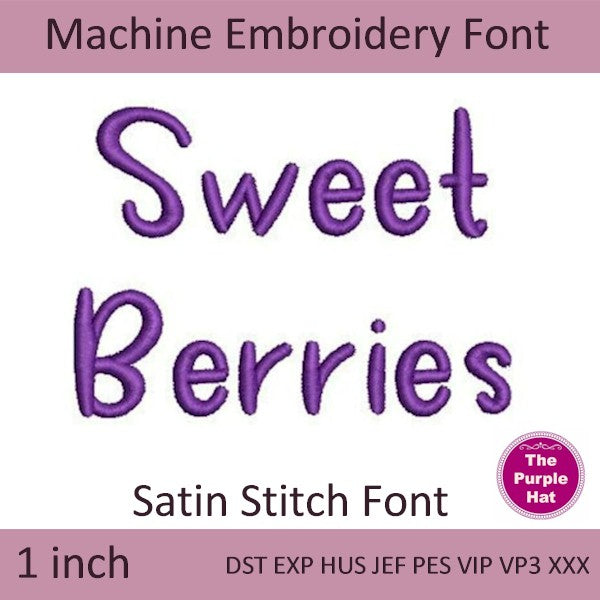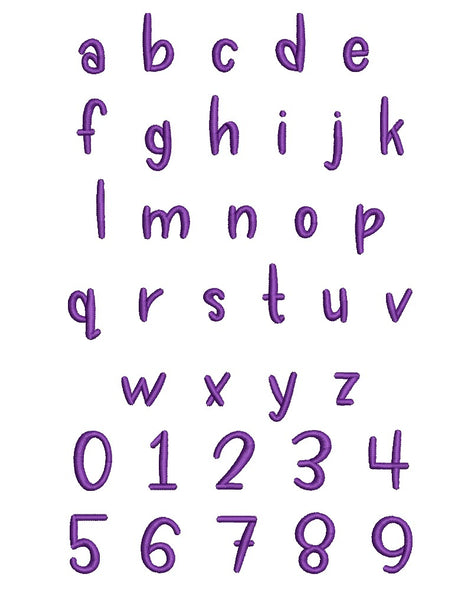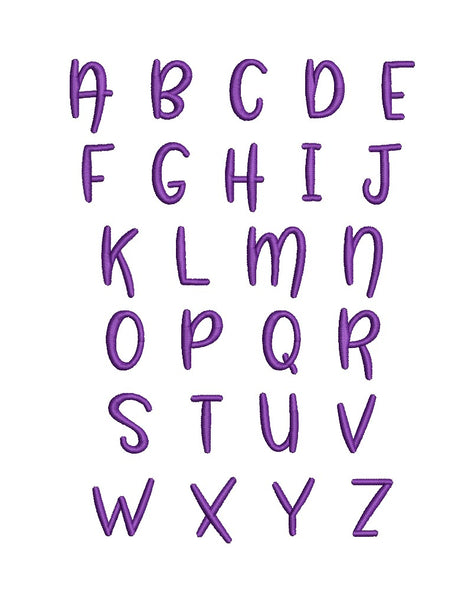
Sweet Berries machine embroidery font 1 inch
🍓 Sweet Berries Satin Stitch Font
A modern and adorable font for your embroidery machine projects!
🔠 Uppercase Letters: A-Z
🔡 Lowercase Letters: a-z
🔢 Numbers: 0-9
✨ Style: Modern satin stitch